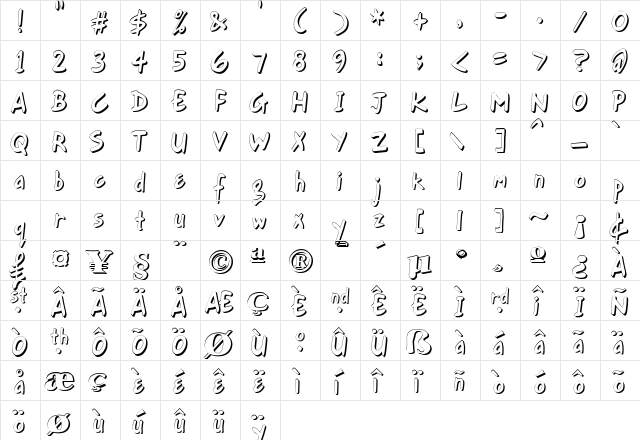
Gort's Fair Hand UprightShadow Medium
| Designer | Bree Gorton & George Herbert Hirst |
Design Context for Gort's Fair Hand UprightShadow Typeface
Gort's Fair Hand UprightShadow flows with the natural rhythm of handwritten lettering, making it ideal for designs that call for warmth and personal expression.
Font Pairing: Combine Gort's Fair Hand UprightShadow with a simple geometric sans for maximum contrast — the tension between flowing curves and clean structure is a classic typographic pairing.